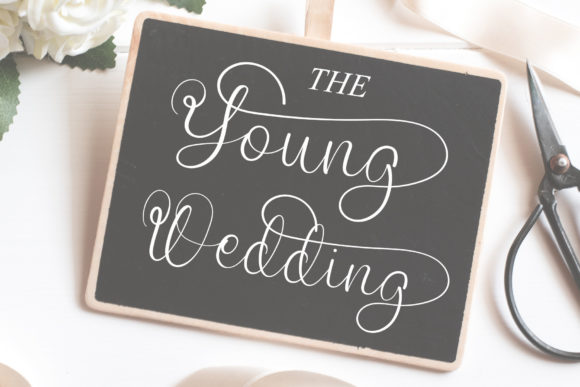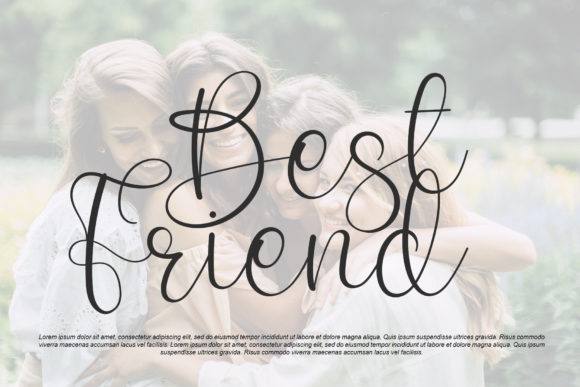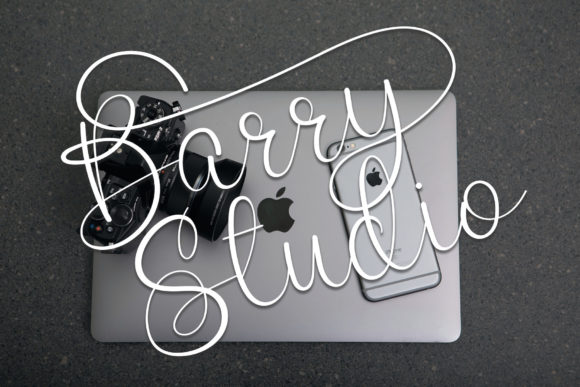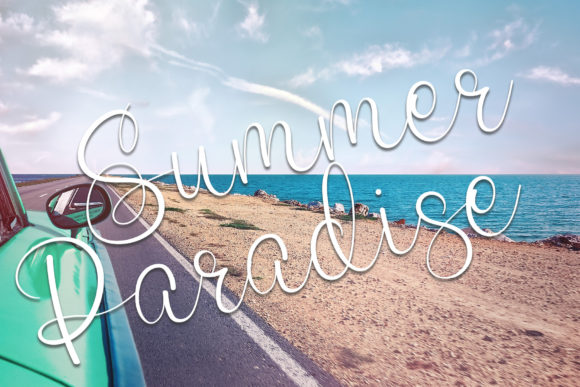
About Midday Font
Midday is a sweet, whimsical, and flowing script font with a thin and delicate appearance. The characters dance along the baseline, adding a playful and dynamic touch to the text. This font is designed to bring a luxury spark to any design project, enhancing its visual appeal and creating a sophisticated atmosphere.
The whimsical and flowing nature of Midday makes it an ideal choice for projects that require a touch of elegance and charm. Whether used for branding, logos, invitations, or any other creative endeavor, Midday adds a luxurious and distinctive flair.
The thin script design of Midday contributes to its versatility, allowing it to complement various design aesthetics. Its delicate strokes create a graceful and refined look, making it suitable for both formal and creative applications.
One notable feature of Midday is its PUA encoding, providing easy access to a variety of amazing glyphs and ligatures. This functionality enhances the font’s creative potential, allowing designers to customize their projects effortlessly.
In summary, Midday is more than just a font; it’s a sweet and whimsical design asset that adds a touch of luxury to your creative projects. With PUA encoding, designers can seamlessly access its amazing glyphs and ligatures, making it a user-friendly option for creating visually stunning and sophisticated designs. Whether applied to branding or other design needs, Midday brings a delightful and elegant spark to every project it graces.